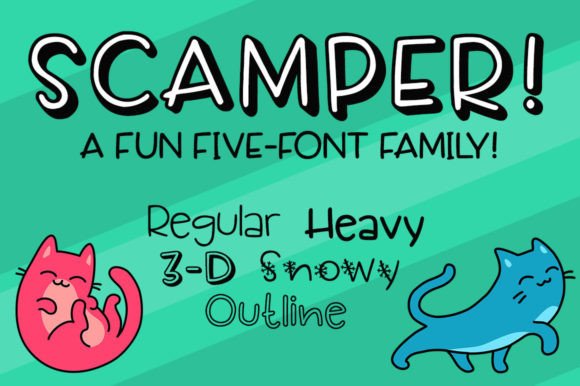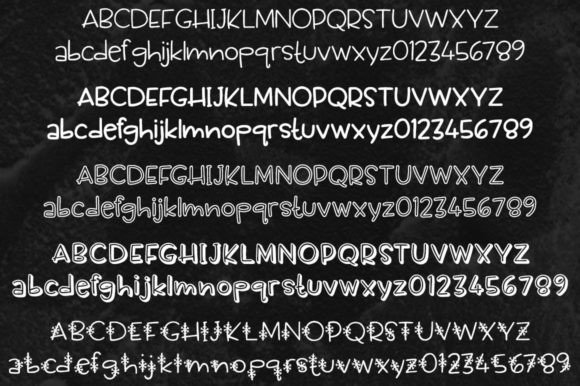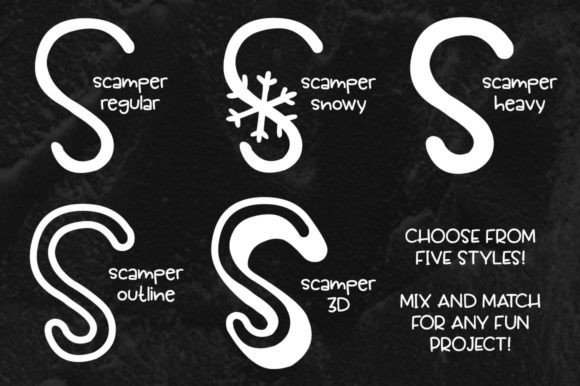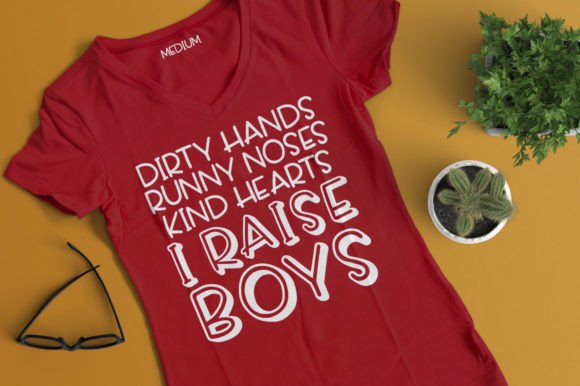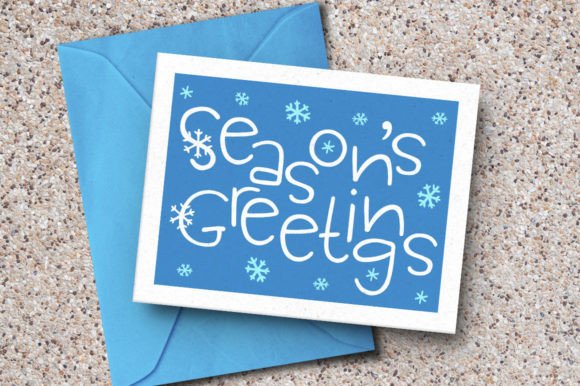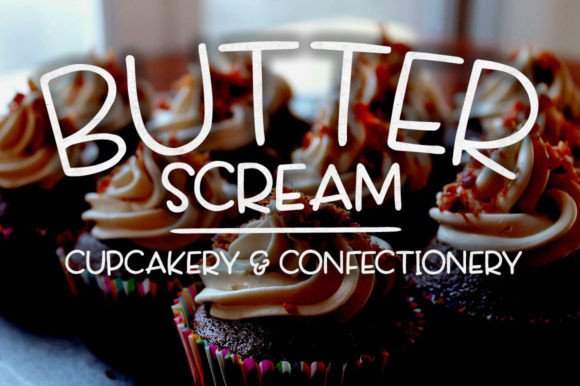
Introduction to Scamper Font Font
Fonts play a crucial role in design, and the Scamper Font font is a typeface that brings both character and versatility to any project. Whether you’re working on a branding project, a website, or a print design, the Scamper Font font offers a unique style that can elevate your work.
Scamper started out its life as a winter font, with snowflakes in all of the letters.
But I ended up loving the snow-less letters so much, I made some different versions Scamper now comes in 5 different styles: regular, heavy, outline, 3D, and of course, the original snowy version.
Key Features of Scamper Font Font
Why Choose Scamper Font Font?
The Scamper Font font is more than just a typeface – it’s a design tool that helps you communicate your message with style and clarity. Its unique character set and versatile design make it suitable for a wide range of applications, from elegant invitations to bold headlines.
With its carefully crafted letterforms and balanced proportions, the Scamper Font font ensures readability and visual appeal across all mediums.
What makes Scamper Font font special?
The Scamper Font font stands out with its unique design, exceptional readability, and versatility across various design applications.